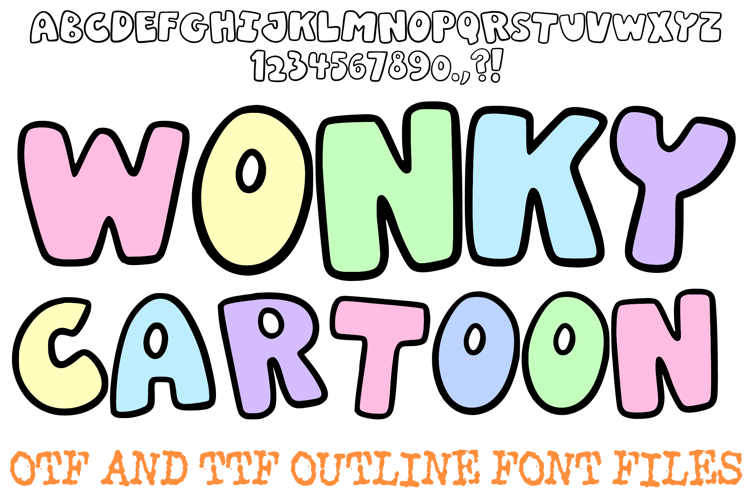
Wonky Doodle Font Playful Hand-Drawn Typeface Quirky Kids
Add a playful, handwritten touch to your designs with Wonky Cartoon Font, a charming bubble doodle font. This font features quirky, uneven lettering that brings a fun, carefree energy to any project.
Designed for readability while maintaining a whimsical vibe, Wonky Cartoon is perfect for DIY crafts, children's book covers, classroom decorations, greeting cards, and vibrant branding.
Clean, bold outlines for easy cutting (perfect for Cricut or Silhouette machines)
Whether you are creating stickers, sublimation designs, or fun graphics, Wonky Cartoon makes your projects pop!